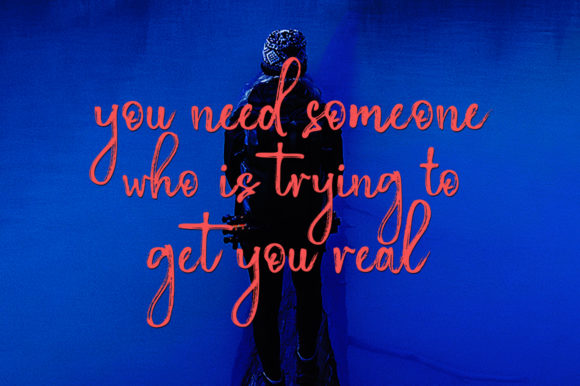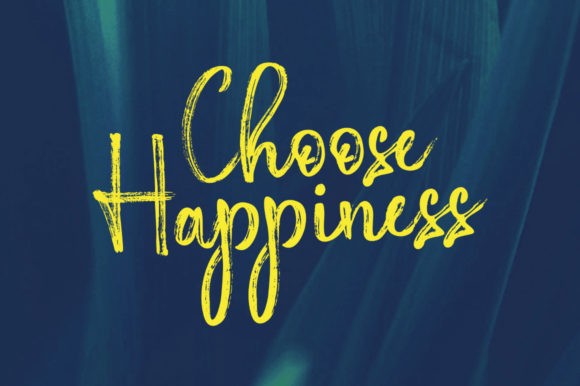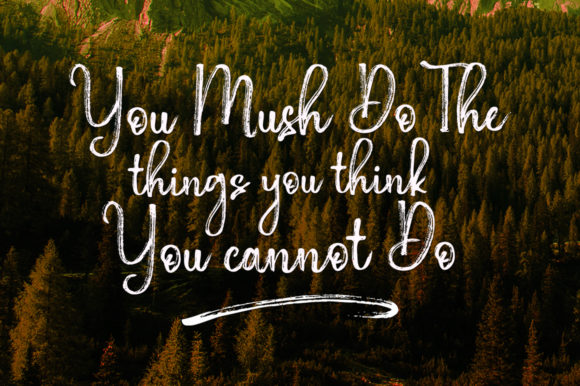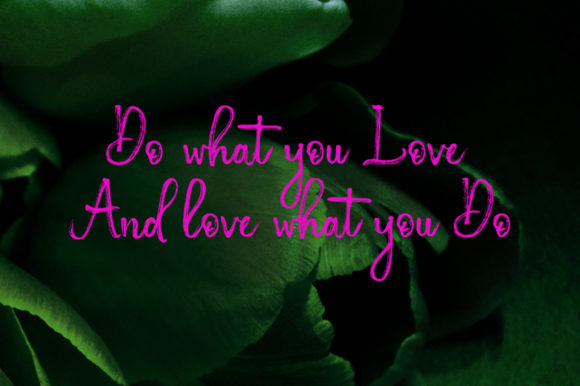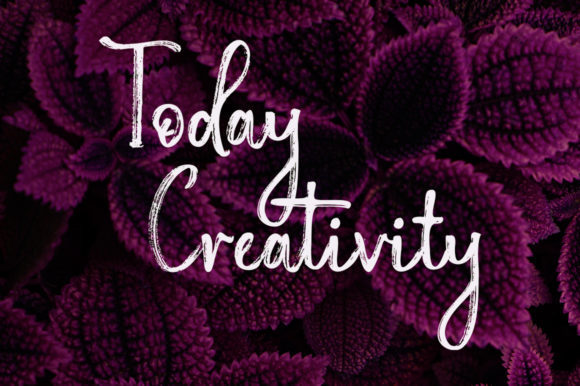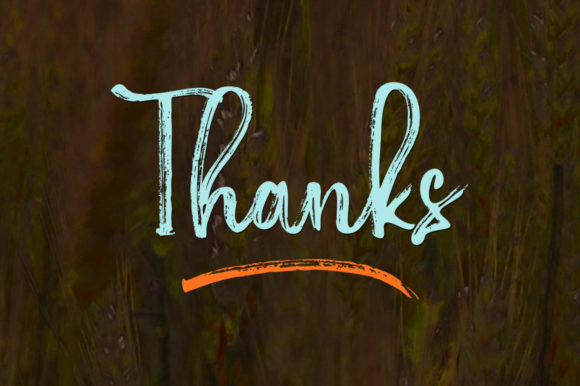
Aster Love Font: The Perfect Handwritten Font for DIY Projects
Aster Love Font is a stunning handwritten font that has captured the hearts of designers and crafters alike. This gorgeous font is the result of a unique pairing of a brush pen and pencil, which gives it an incredibly endearing and authentic look. In this article, we’ll explore the features and benefits of Aster Love Font, and how it can bring any DIY project to life.
The Origin of Aster Love Font
Aster Love Font is a carefully crafted font that is inspired by the beauty of handwritten script. The font is created by combining the fluid strokes of a brush pen with the delicate lines of a pencil, resulting in a unique and captivating look. This distinctive approach to font creation sets Aster Love Font apart from other handwritten fonts, making it a standout choice for designers and crafters looking for a personal touch.
What Makes Aster Love Font So Special?
Aster Love Font is more than just a font – it’s a way to add a personal touch to any DIY project. The font’s unique blend of brush pen and pencil strokes gives it a warm, inviting feel that’s perfect for creating handmade cards, invitations, and other craft projects. With Aster Love Font, you can add a touch of elegance and sophistication to your designs, making them truly special and one-of-a-kind.
Features of Aster Love Font
- Unique Handwritten Style: Aster Love Font boasts a distinctive handwritten style that’s both elegant and playful.
- Brush Pen and Pencil Combination: The font’s unique blend of brush pen and pencil strokes gives it a captivating, authentic look.
- Perfect for DIY Projects: Aster Love Font is ideal for creating handmade cards, invitations, and other craft projects.
- Elegant and Playful: The font’s elegant and playful style makes it perfect for a wide range of design applications.
Benefits of Using Aster Love Font
Using Aster Love Font in your DIY projects offers a range of benefits, including:
- Adding a Personal Touch: Aster Love Font allows you to add a personal touch to your designs, making them truly special and one-of-a-kind.
- Standing Out from the Crowd: The font’s unique style ensures that your designs will stand out from the crowd and grab attention.
- Easy to Use: Aster Love Font is easy to use and can be incorporated into a wide range of design applications.
- Versatile: The font’s versatile style makes it perfect for a wide range of design applications, from handmade cards to invitations and more.
How to Use Aster Love Font in Your DIY Projects
Using Aster Love Font in your DIY projects is easy. Here are a few tips to get you started:
- Pair with Other Fonts: Pair Aster Love Font with other fonts to create a unique and eye-catching design.
- Add Graphics and Images: Add graphics and images to your design to make it more visually appealing.
- Keep it Simple: Don’t be afraid to keep your design simple and elegant – Aster Love Font is perfect for minimalist designs.
Aster Love Font is a stunning handwritten font that’s perfect for designers and crafters looking to add a personal touch to their DIY projects. With its unique blend of brush pen and pencil strokes, this font is sure to captivate audiences and make your designs stand out from the crowd. Whether you’re creating handmade cards, invitations, or other craft projects, Aster Love Font is the perfect choice. So why wait? Download Aster Love Font today and bring your DIY projects to life!